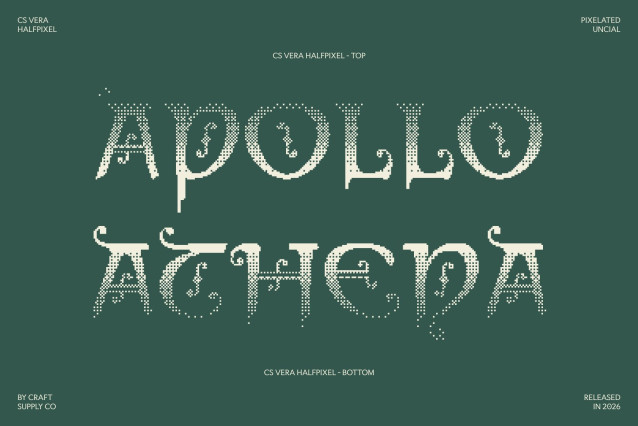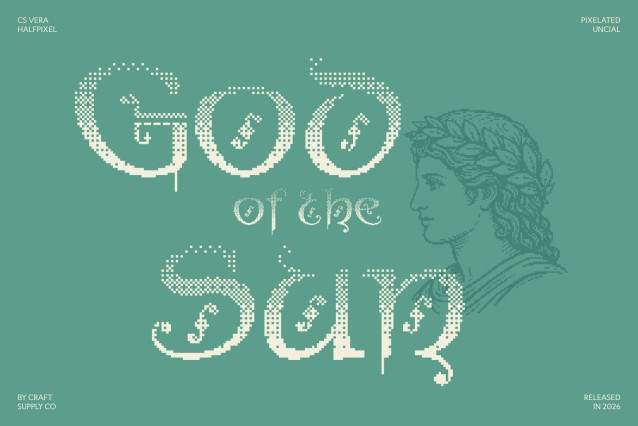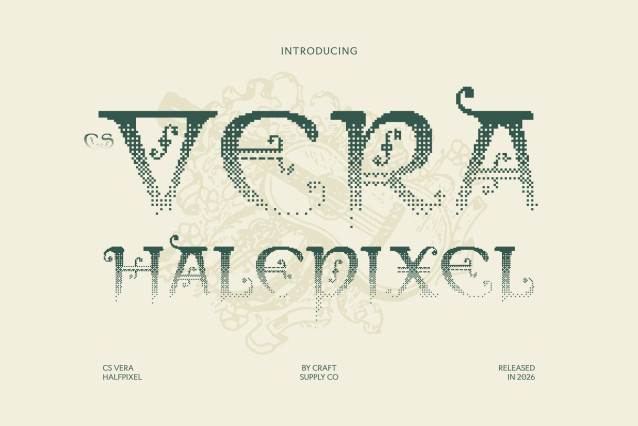
CS Vera Halfpixel – Uncial Display Font
Where Elegance Meets Nostalgia
This is a classic uncial display typeface inspired by the graceful letterforms of medieval manuscripts. Its rounded shapes, gentle arcs, and balanced proportions create a refined and artistic presence that immediately evokes a sense of history and craftsmanship.
Romantic and Nostalgic Character
The soft curves and subtle decorative flourishes give this font a romantic and timeless ambiance. Its distinctive uncial style feels warm, elegant, and heritage-driven perfect for designs that aim to capture beauty, tradition, and a touch of storytelling.